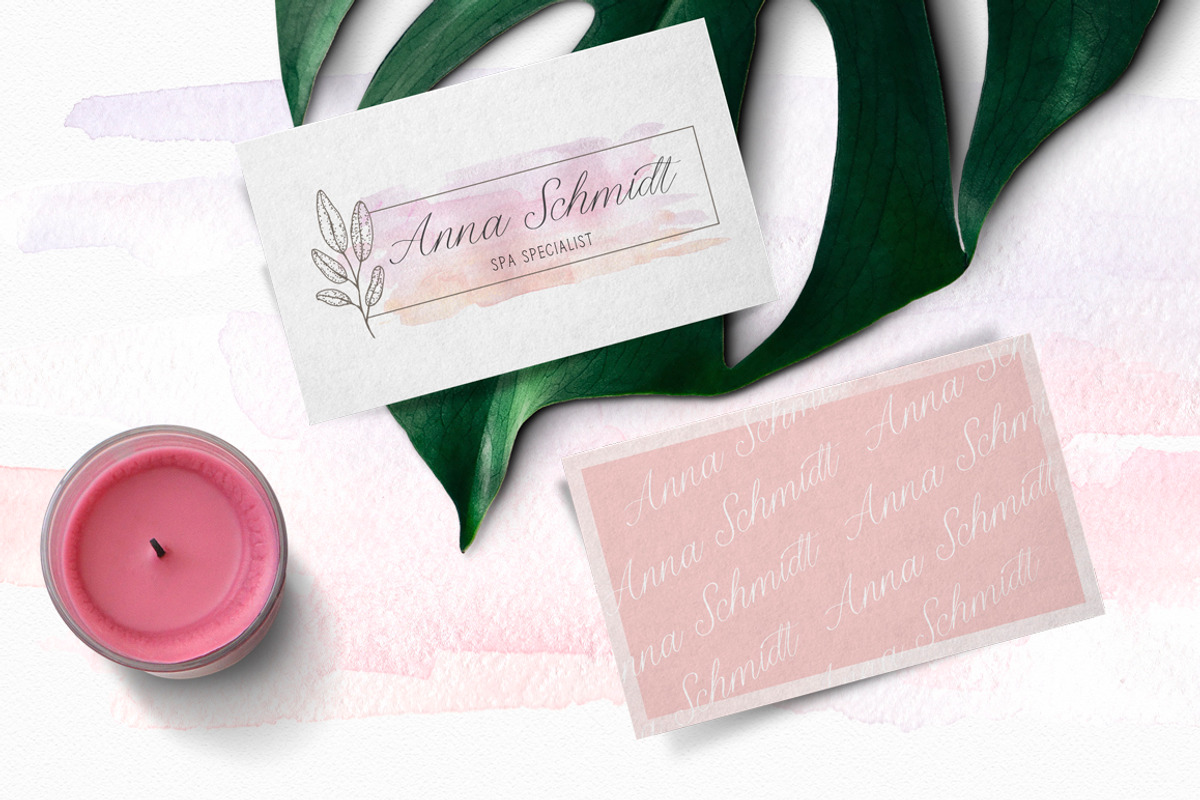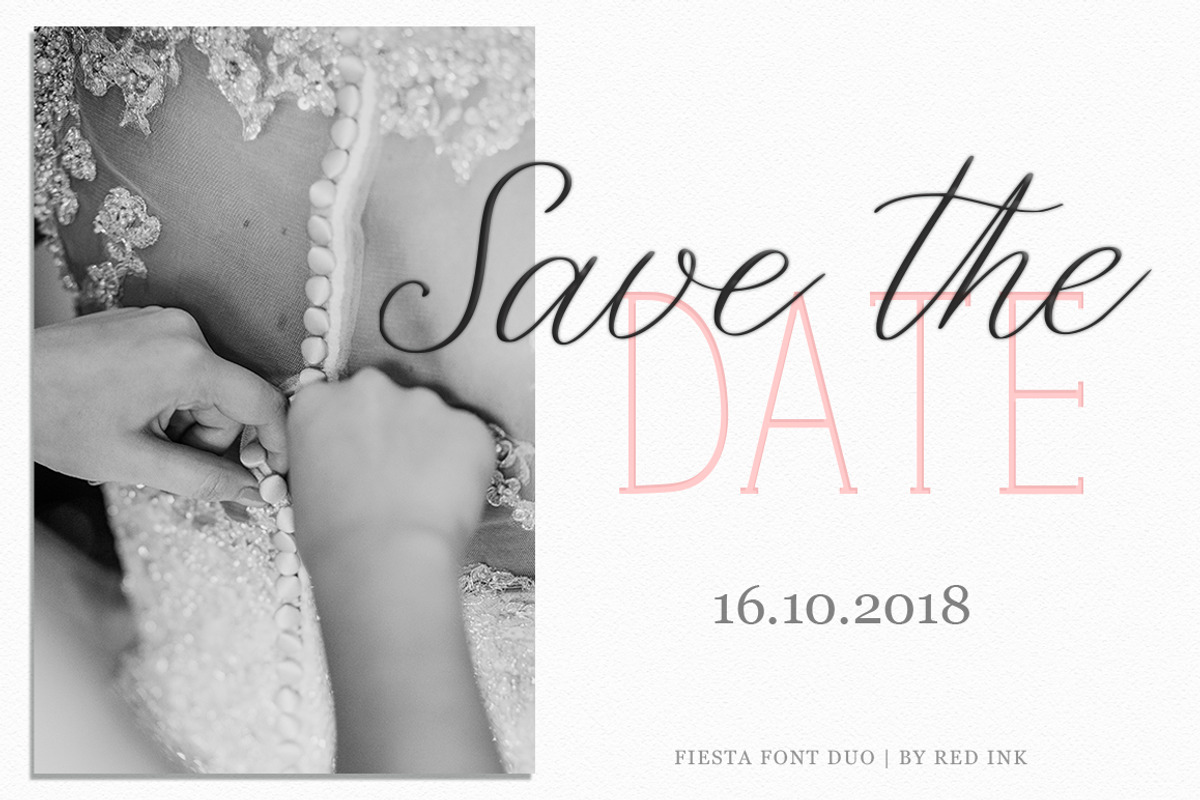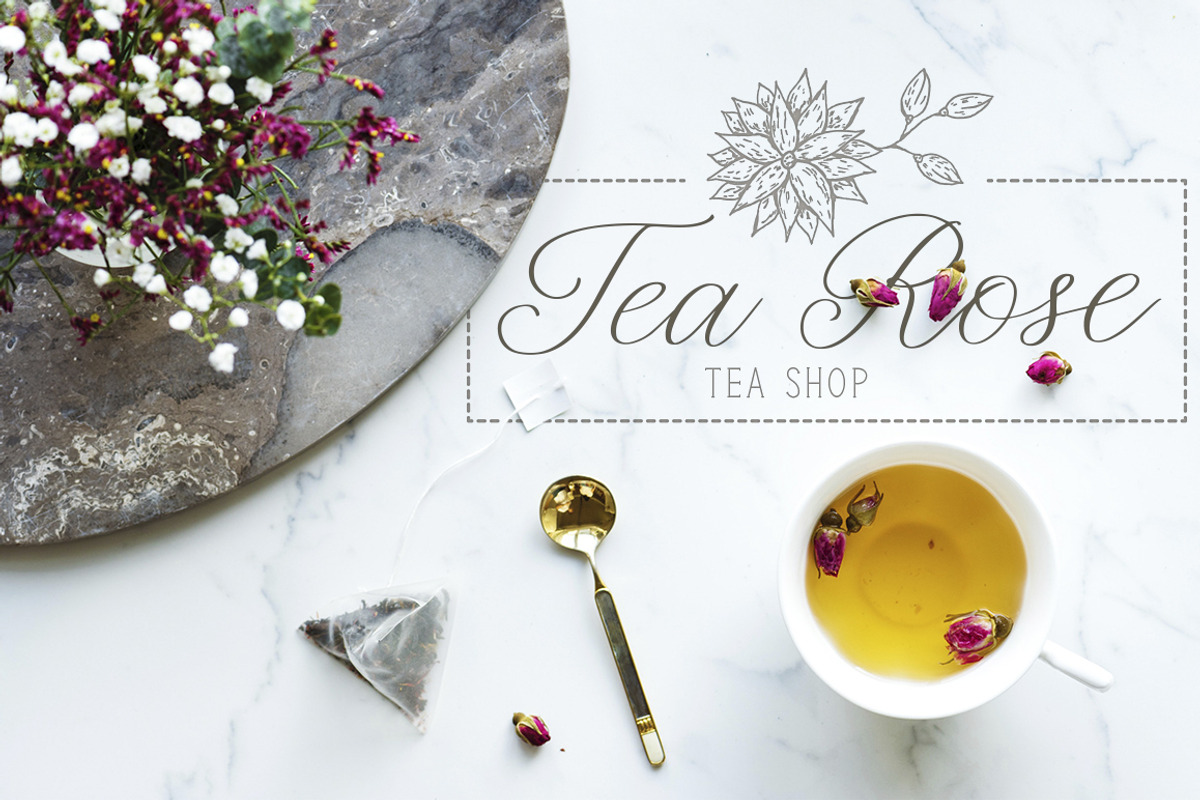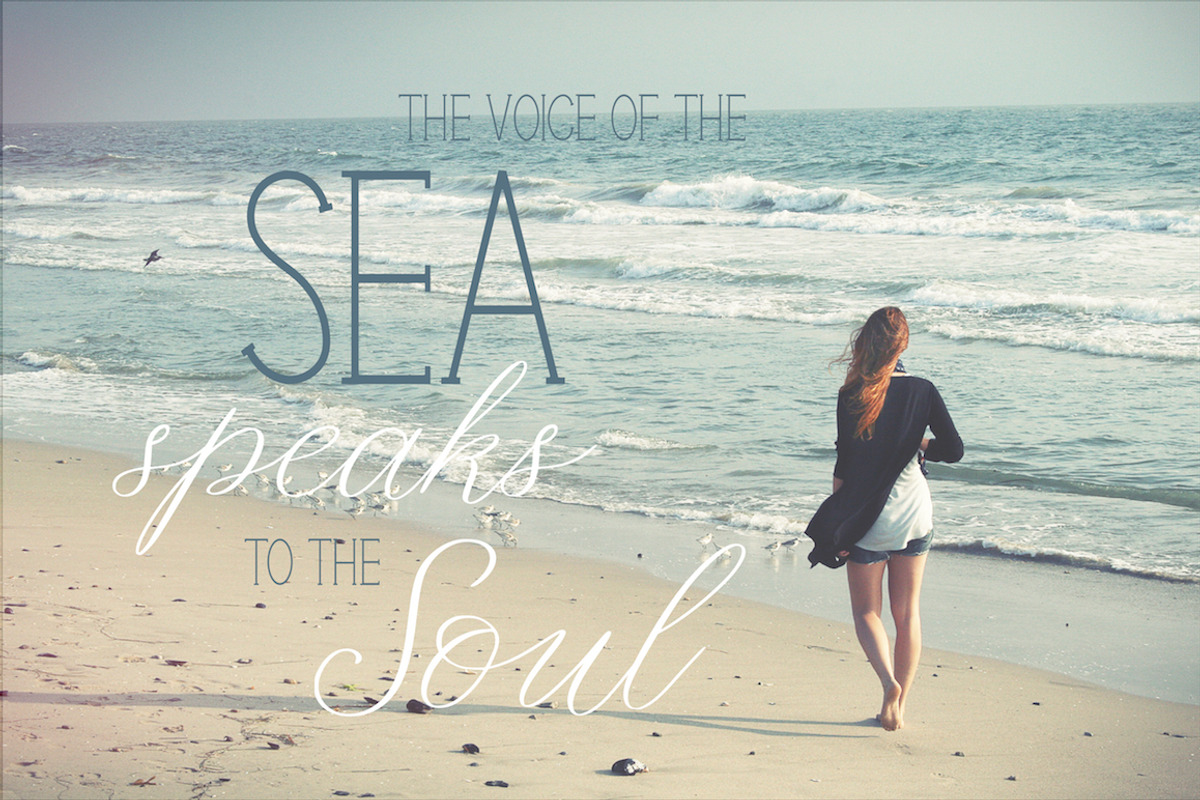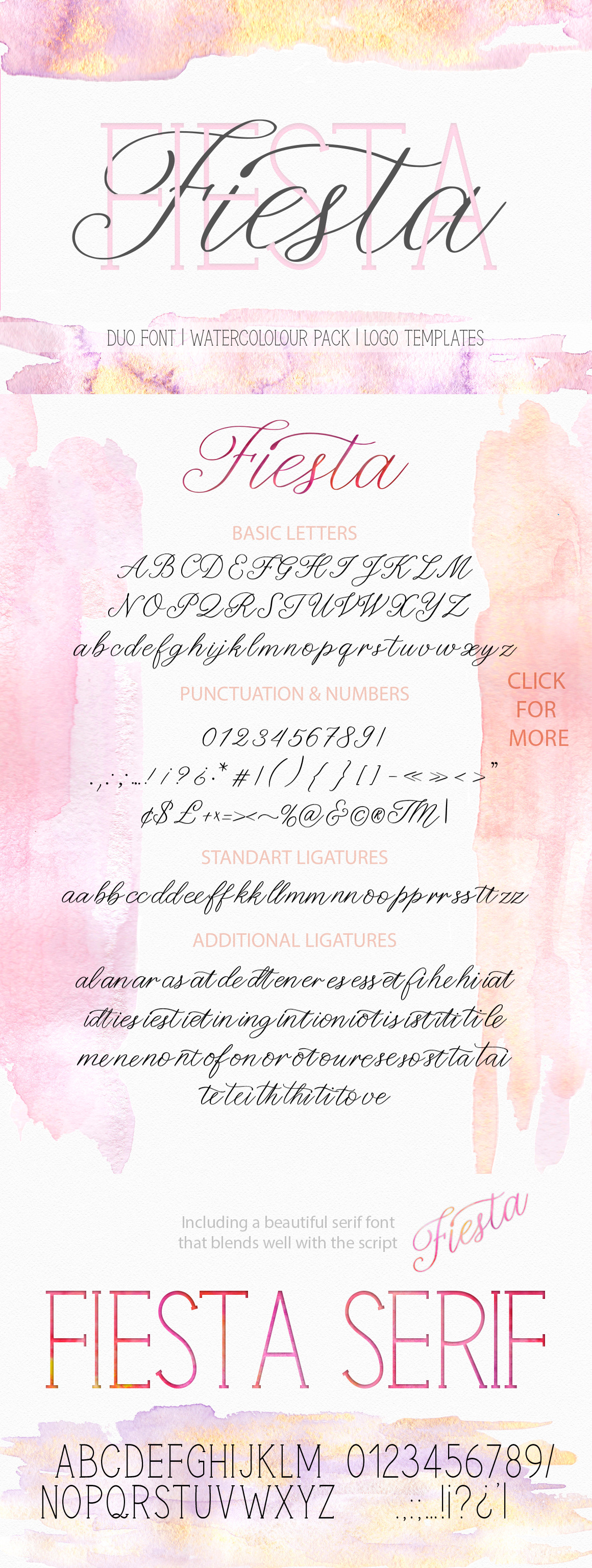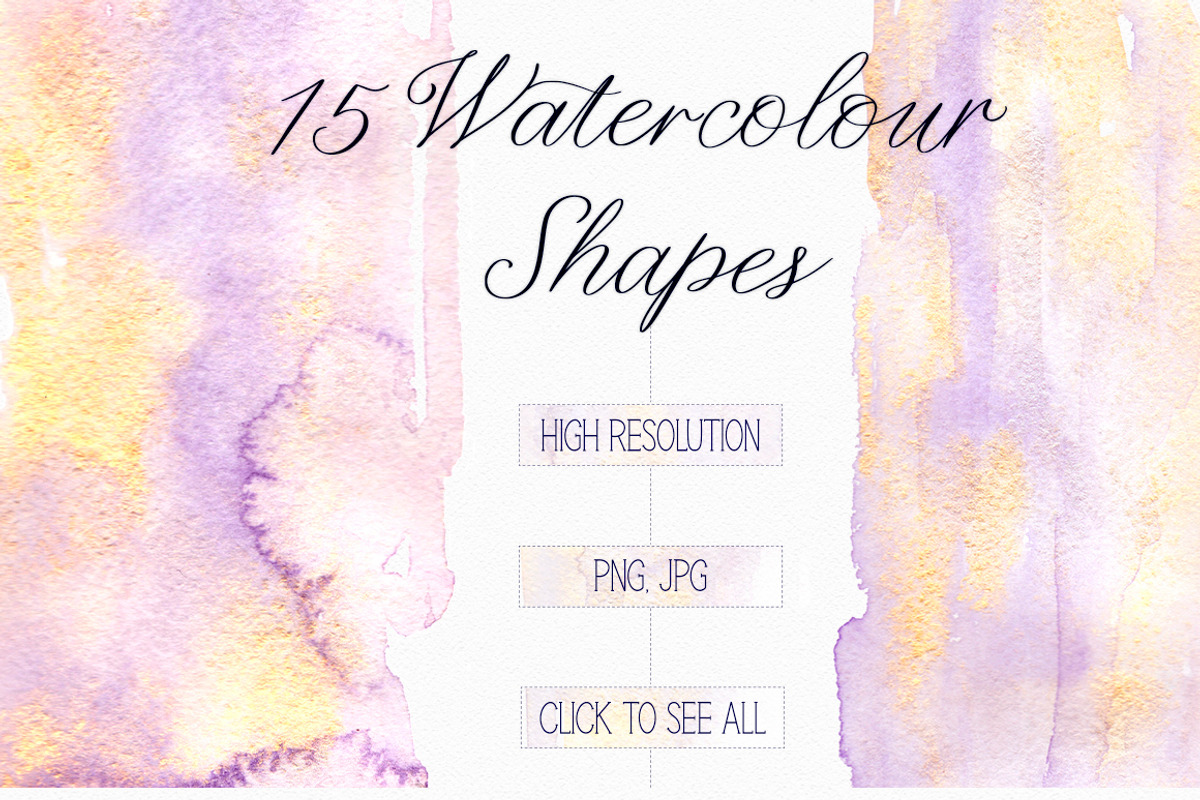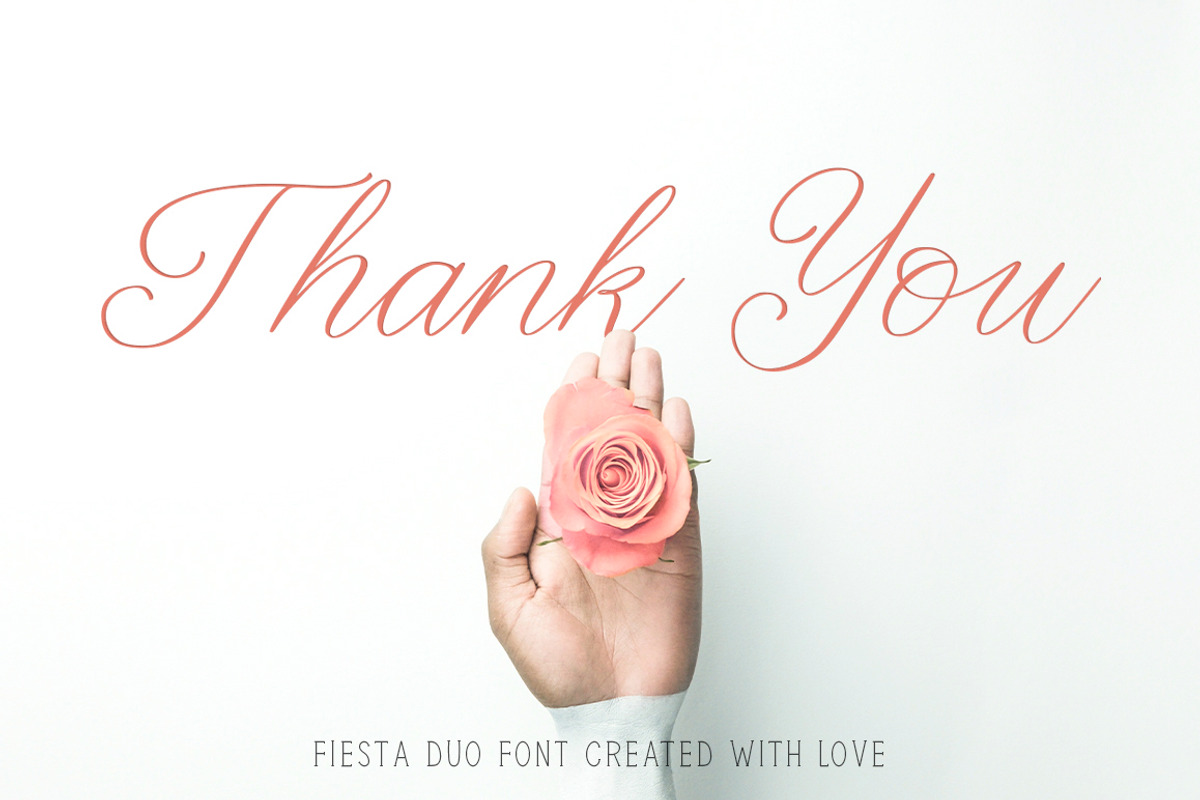
Fiesta. Font Duo. + Bonuses
Fiesta is a beautiful gentle pair of script and serif fonts. Modern, expressive; perfectly combined typographic harmony is perfect for posters, greeting cards, t-shits, branding materials, quotes and any other amazing projects you are working on. Each font can be used separately. In conjunction they give a sense of lightness and delicacy – real “fiesta feeling”)))
Fiesta Script font comes with such opportunities & OpenType features:
- 16 Standart Ligatures for double letters
- 52 Adittional Ligatures
- Extended language support, it covers Western European, Central European and South Eastern European languages